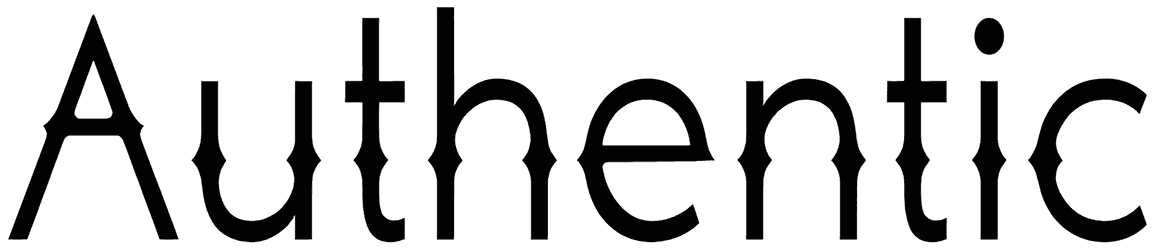
Authentic Font
Authentic is made for those designers who are looking for a stunning font to execute the simplest designs possible. This whiskey font is completely free of any additional decoration. For this reason, the rhomboid appenda…
Authentic is made for those designers who are looking for a stunning font to execute the simplest designs possible. This whiskey font is completely free of any additional decoration. For this reason, the rhomboid appendage in the middle of its letters stands out well.
Using this font, you can design any professional project, such as designing athletes’ clothes, posters for scientific conferences, and general science books, and look brilliant in any field.